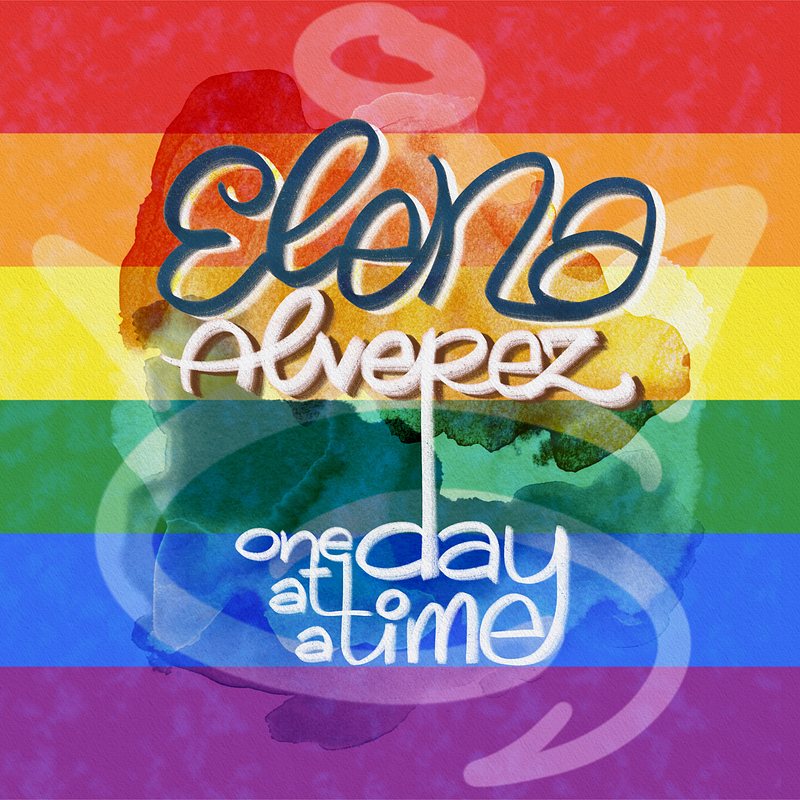
The Pride Month Lettering 00023-Elena from One Day at a Time
“One Day at a Time” is a show that effortlessly weaves humor with heart, engaging viewers in a genuine and impactful way.
The characters feel like old friends you can't help but root for. The way they navigate complex issues like mental illness, immigration, racism, and the complexities of identity through the lens of a Cuban-American family—with wit and warmth—is nothing short of captivating.
What’s truly spectacular is how One Day at a Time showcases the intersectionality of Elena's identity. As a confident and outspoken young woman navigating her queer identity and activism, she learns to see gender as a spectrum rather than a binary construct, allowing her to be more open-minded and accepting of others. And the unwavering support she receives from her family, especially her fabulous grandmother Lydia? Pure gold.
P.S. I personally love my design of the show title. I think it freshens up the plain style they originally had.